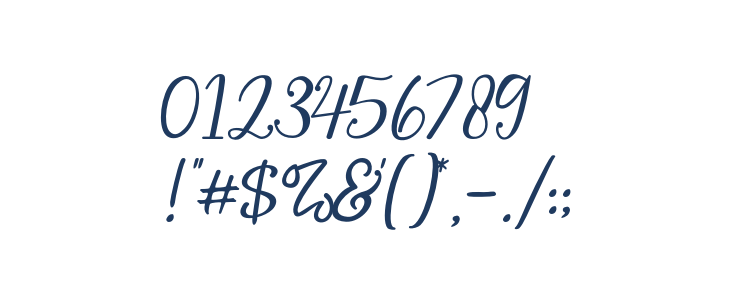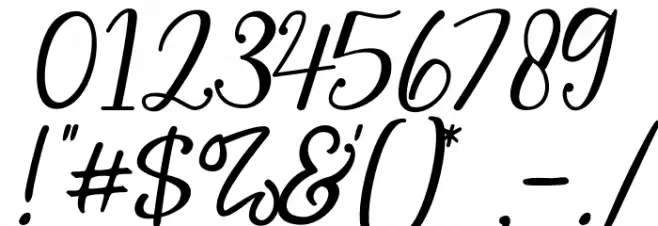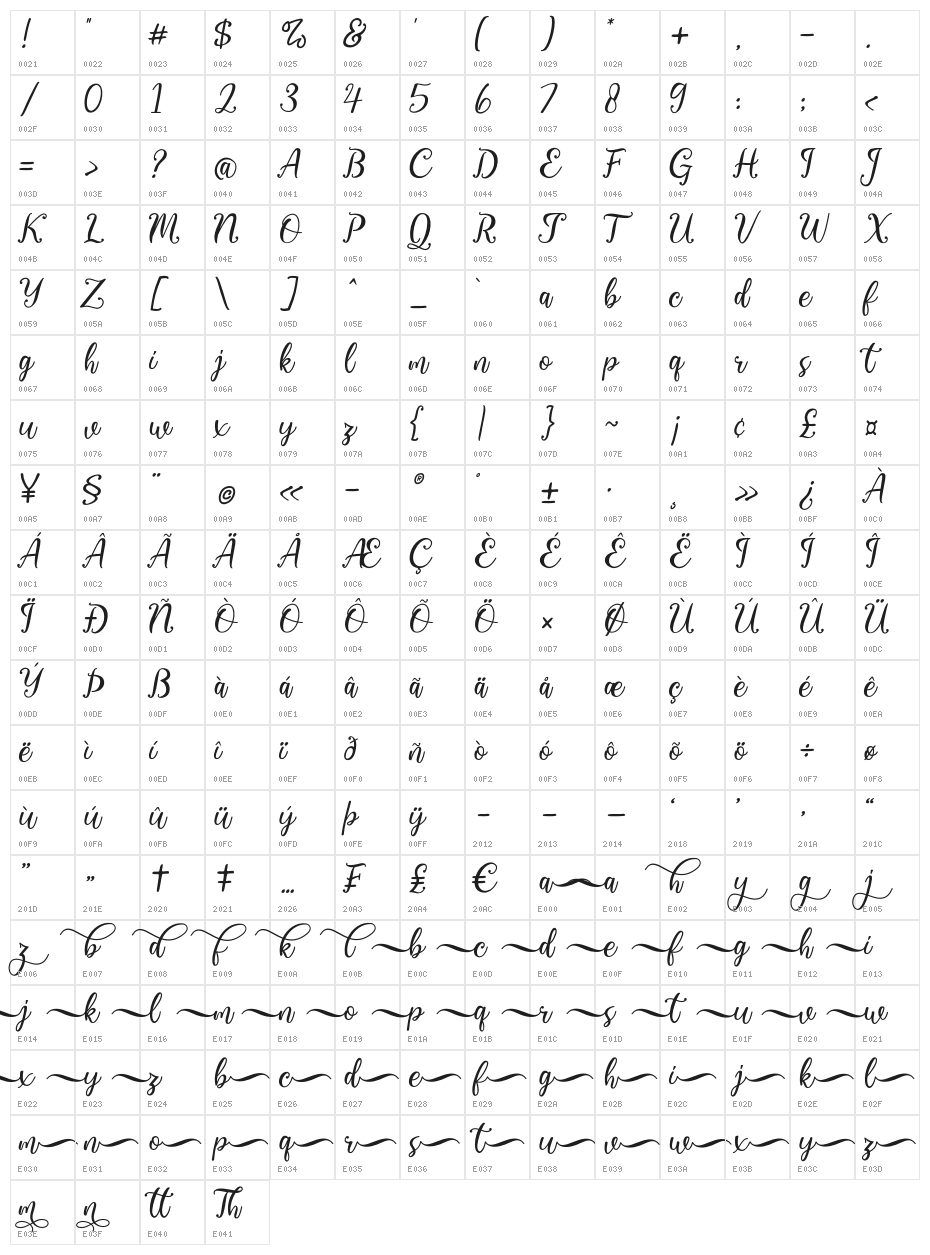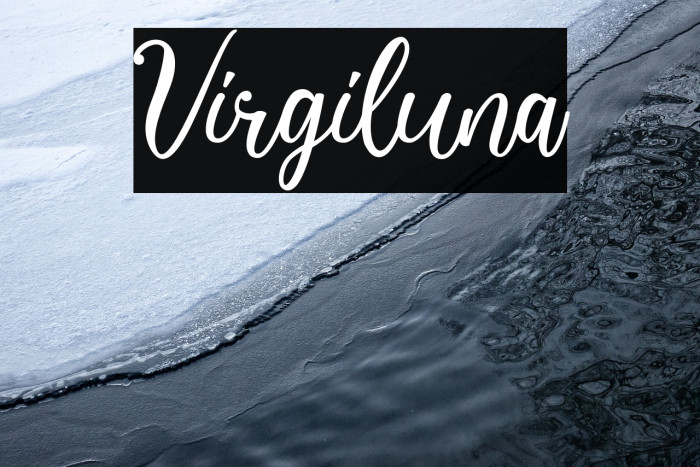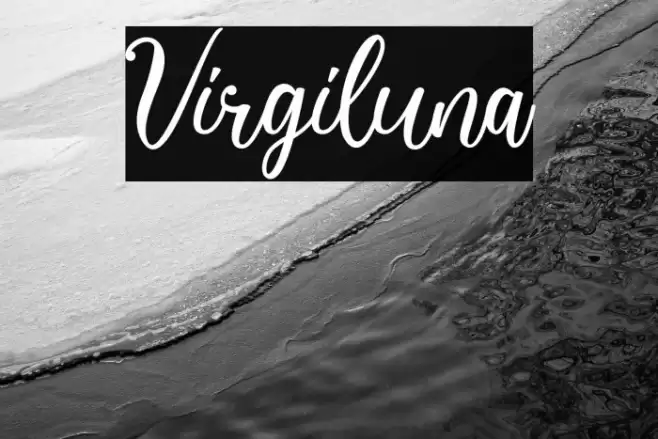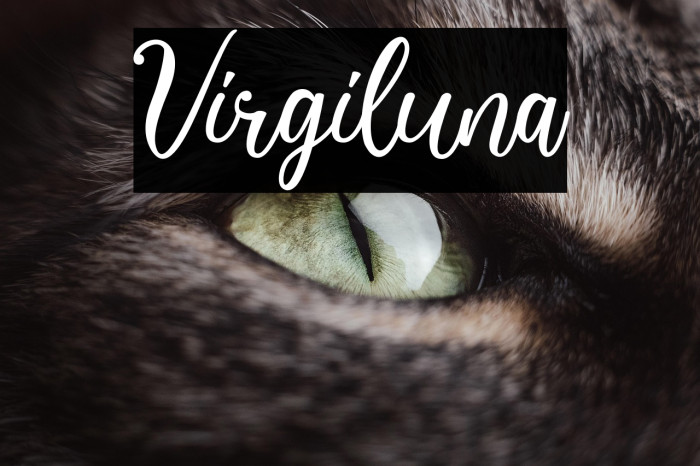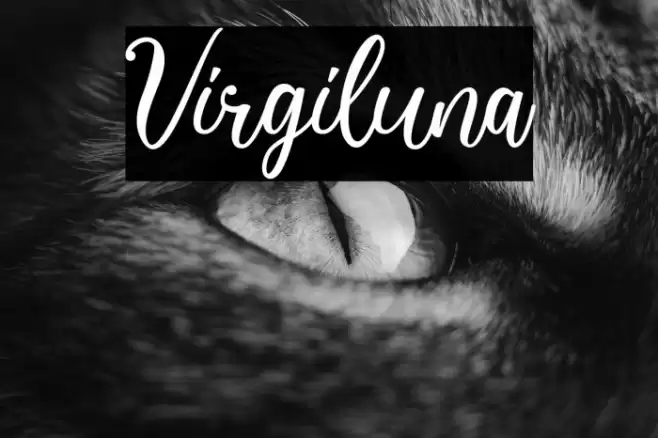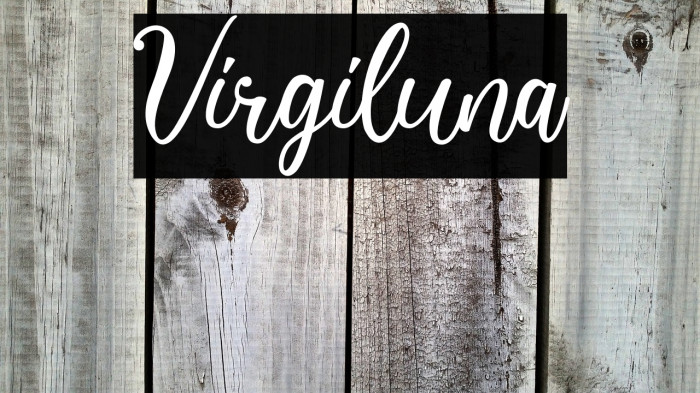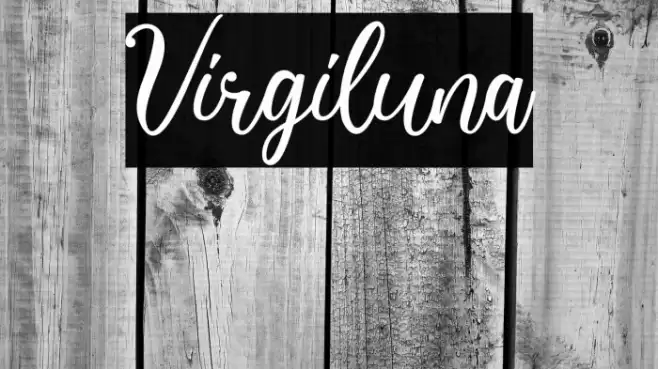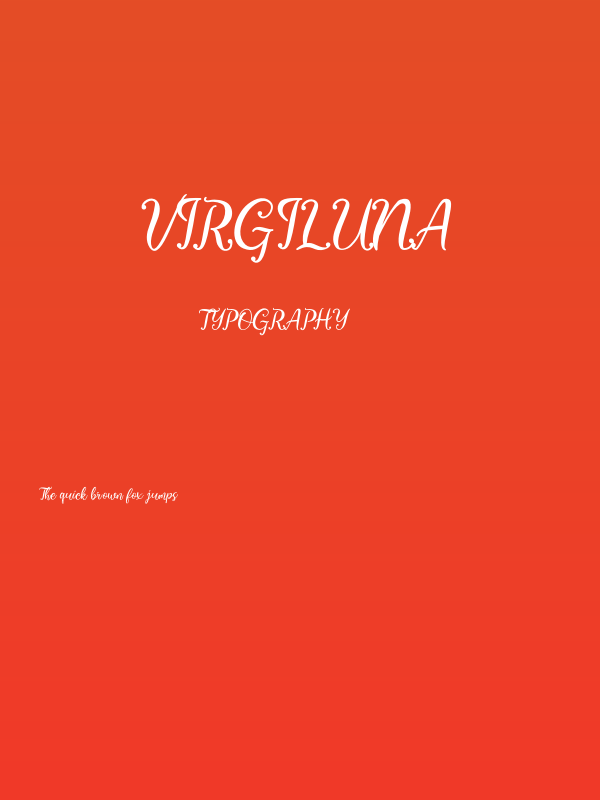
Virgiluna Font
Virgiluna Description
This font features an elegant and flowing script style, characterized by its smooth, cursive strokes and decorative flourishes. The uppercase letters are particularly ornate, with loops and swirls that add a touch of sophistication and charm. The lowercase letters maintain a consistent flow, enhancing readability while retaining the font's artistic flair. The numerals are designed with a similar cursive style, ensuring a cohesive look across all characters. Special characters are thoughtfully integrated, maintaining the overall aesthetic. This font is perfect for projects that require a personal, handwritten touch, such as invitations, greeting cards, and branding materials.